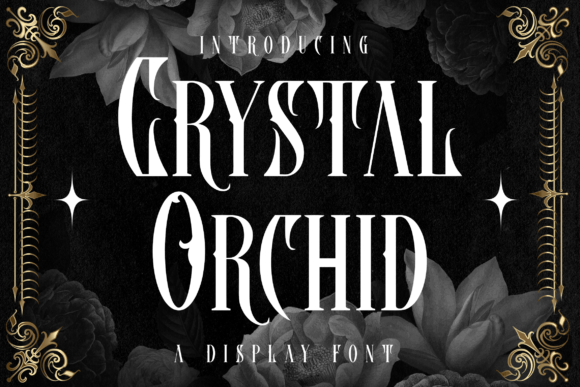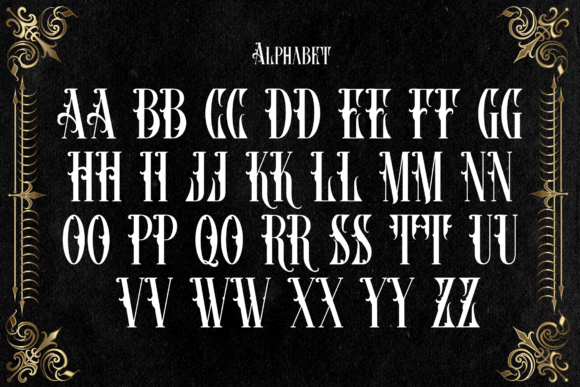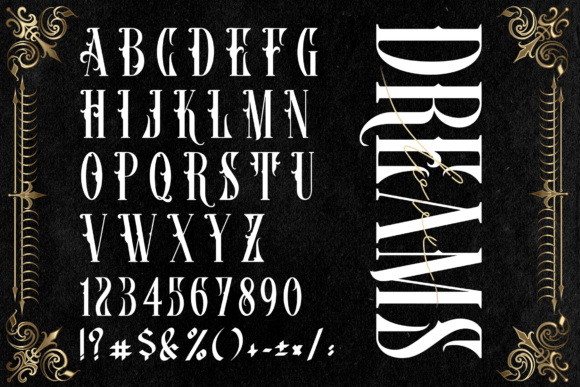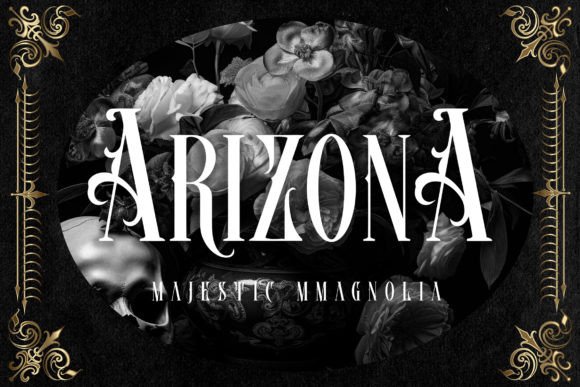
Crystal Orchid Font: Bold Blackletter for Vintage Logo Design
About the Crystal Orchid Font
Add a touch of class to your work with the Crystal Orchid Font, a truly exceptional typeface. Crystal Orchid is a highly detailed and chic display blackletter font. It would make a great choice for exquisite retro-urban designs, tattoo business branding, logos, vintage designs, and more.
Crystal Orchid’s intricate detailing makes it ideal for headlines, short impactful text in logos and branding materials, and posters. It excels in projects requiring a strong vintage or Art Deco aesthetic. However, its highly decorative nature renders it unsuitable for body text or UI elements where legibility is paramount; long paragraphs would be difficult to read.
Its bold and chic personality suits brands aiming for a sophisticated, retro feel—think high-end fashion, boutique hotels, or premium spirits. Avoid pairing it with fonts equally ornate; instead, consider a clean sans-serif like Montserrat for balance, or a simple serif like Playfair Display for a more classic feel. A contrasting script font could also work well for smaller elements, adding a layer of elegance.
For a more modern twist, geometric sans-serifs such as Futura or Gill Sans would create a compelling juxtaposition of styles. The key is to select a contrasting font that provides clear legibility for supporting text.
Crystal Orchid Font Usage Examples
Crystal Orchid Font Example